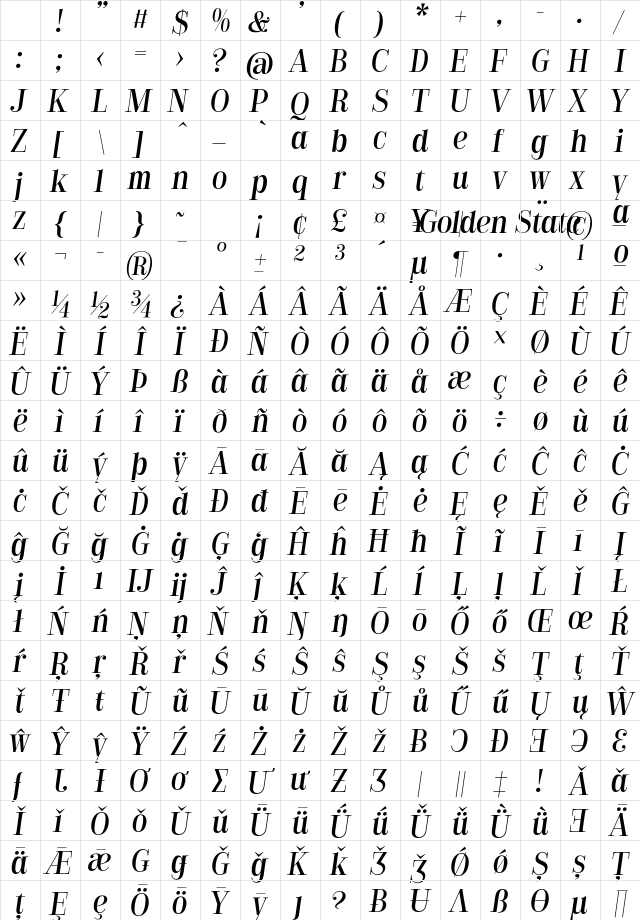
Complete Golden State Serif PERSONAL Italic glyph index. Displaying only characters natively supported by Golden State Serif PERSONAL Italic font.
Golden State Serif PERSONAL carries the refined structure of traditional serif typography, with bracketed terminals and considered proportions that communicate credibility and craft. The slanted form adds forward momentum and visual energy.
Pro Tip: Use Golden State Serif PERSONAL for editorial body copy and considered headline work. Pair with a neutral sans for UI elements or captions to create a classic hierarchy.